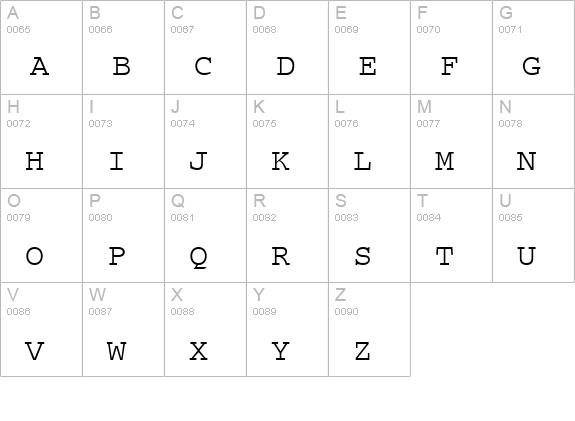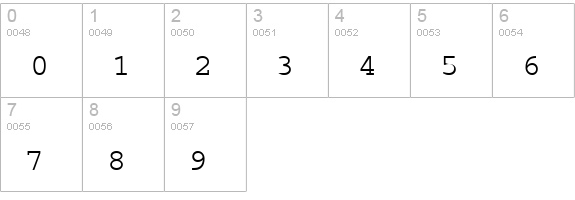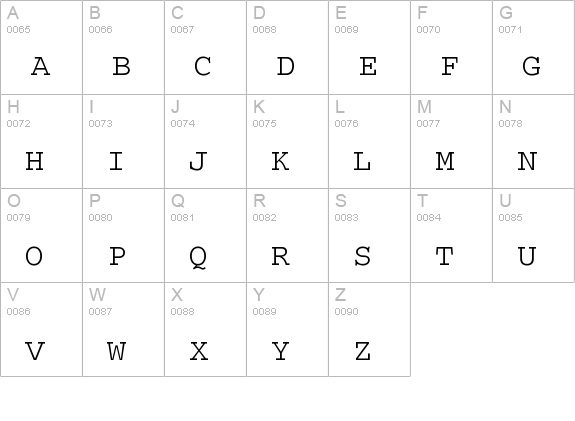
PC Regular is the standard, neutral variant in the PC typeface family \xE2\x80\x94 well suited to general body text, paragraphs, and standard typographic work.
PC Regular font is a versatile and stylish typeface that adds a touch of elegance to any design project. With its clean lines and balanced proportions, this font is perfect for both headlines and body text. It offers a classic yet modern look that is sure to catch the eye of your audience. What makes PC Regular font even more appealing is that it is available for free download at FontsMarket.com. This means that you can easily access and use this font in your personal or commercial projects without any cost. Whether you're designing a logo, creating a website, or crafting a brochure, PC Regular font is a valuable asset that will enhance the overall visual appeal of your work. Not only is PC Regular font free, but it also offers a wide range of characters and glyphs, making it suitable for various languages and typographic needs. Its legibility and readability make it a reliable choice for any text-heavy project, ensuring that your message is conveyed clearly to your audience. Download PC Regular font today from FontsMarket.com and experience the freedom and versatility it brings to your design projects. With its timeless appeal and cost-free availability, PC Regular font is a must-have for any designer or typographer looking to elevate their creations.